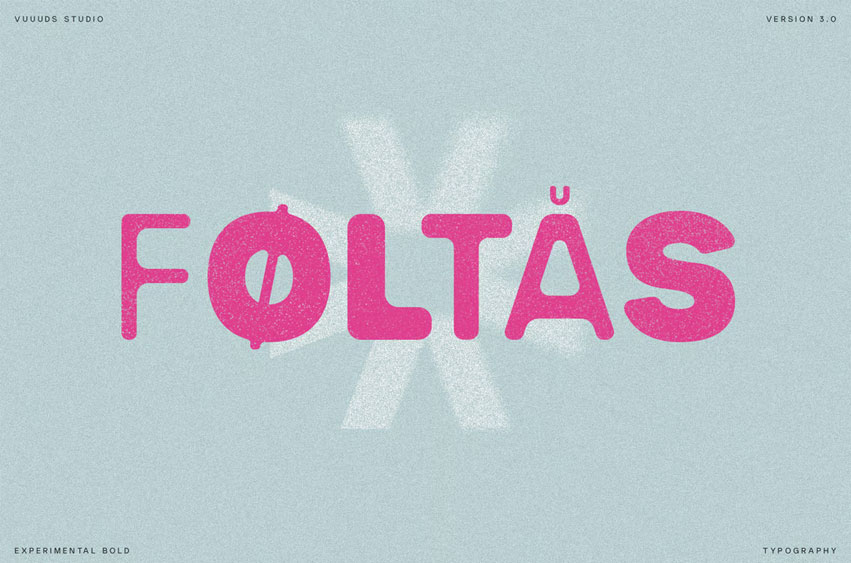
Foltas Font is a playful yet professional typeface defined by its soft, rounded corners and compelling randomized stroke weight variation. This unique irregularity adds an approachable, handmade feel.
Highly versatile and ideal for expressive posters, memorable logos, and friendly branding that needs personality.
Multi-language support: ÀÁÂÃÄÅĂÆÇÈÉÊËÌÍÎÏÐÑÒÓÔÕÖØÙÚÛÜŸÝ àáâãäåăæçèéêëìíîïðñòóôõöøùúûüýÿ ȚțȘș߀£¥©®™